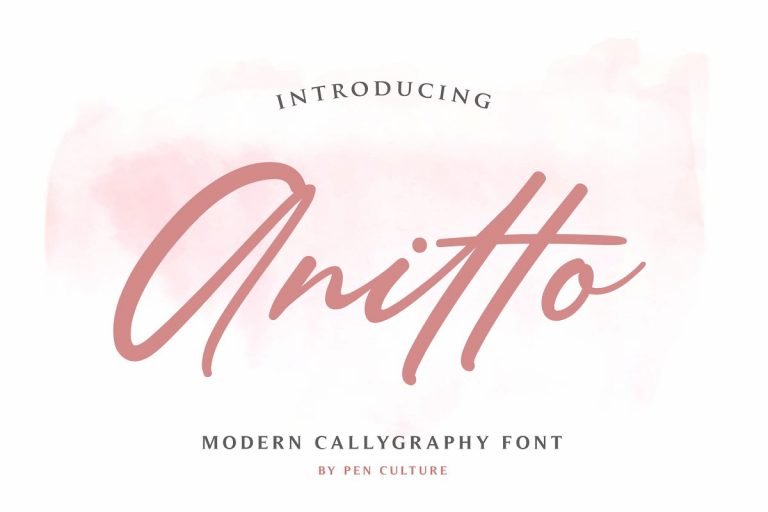
Anitto Calligraphy Font
Hi Designer! A new fresh handmade calligraphy font. It’s a very versatile font that works great in large and small sizes. Introducing Anitto Font. It is designed and shared by Pen Culture . Anitto Calligraphy Font inspired by the beauty of Sunday morning in a village. Anitto Calligraphy Font font has smooth and beautiful curves, so would be perfect for all types.
Anitto is perfect for branding projects, home-ware designs, product packaging, magazine headers – or simply as a stylish text overlay to any background image.